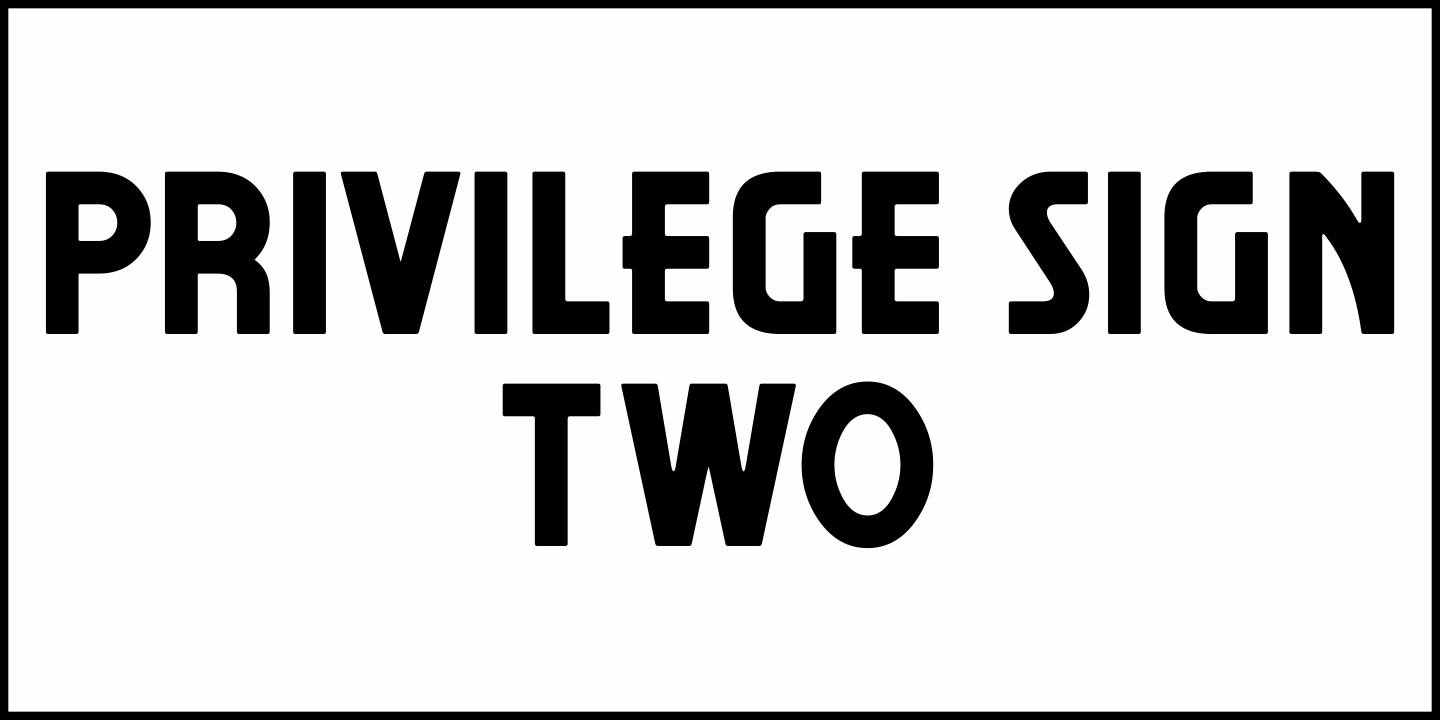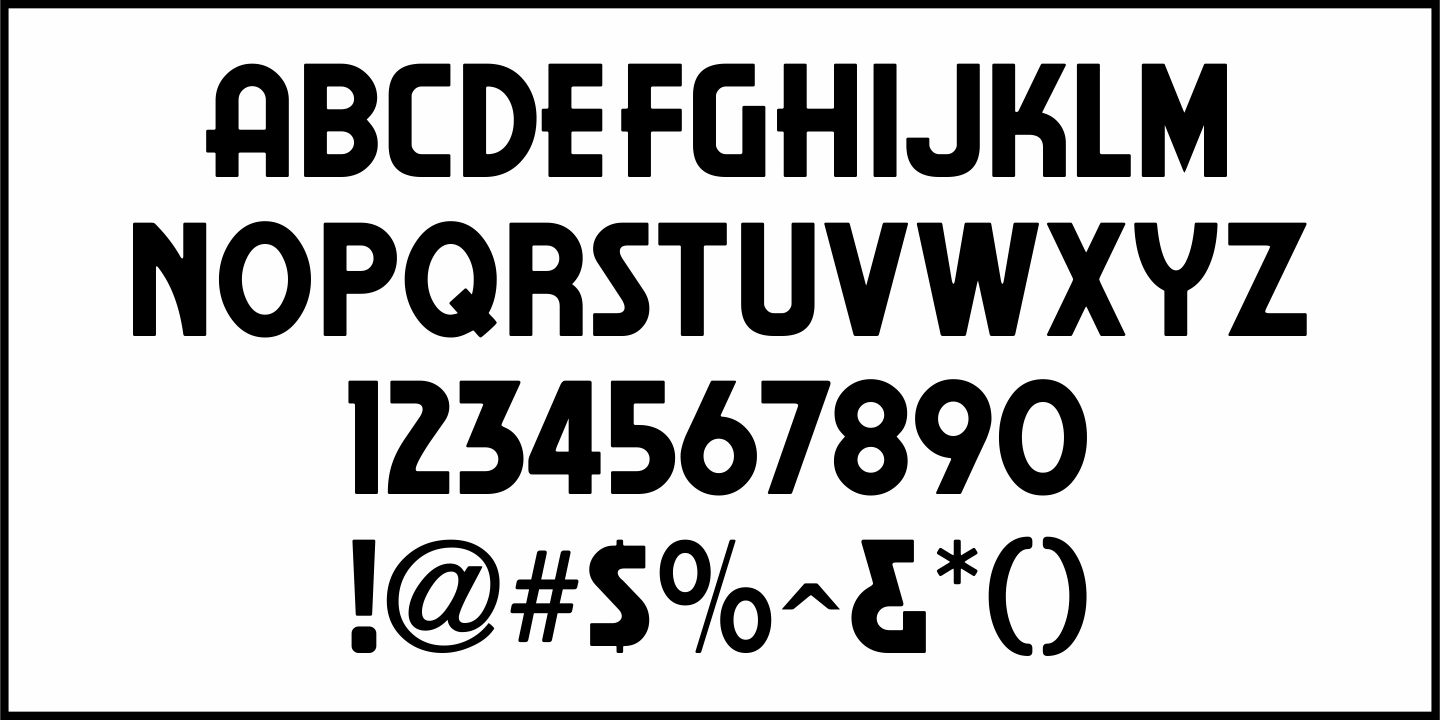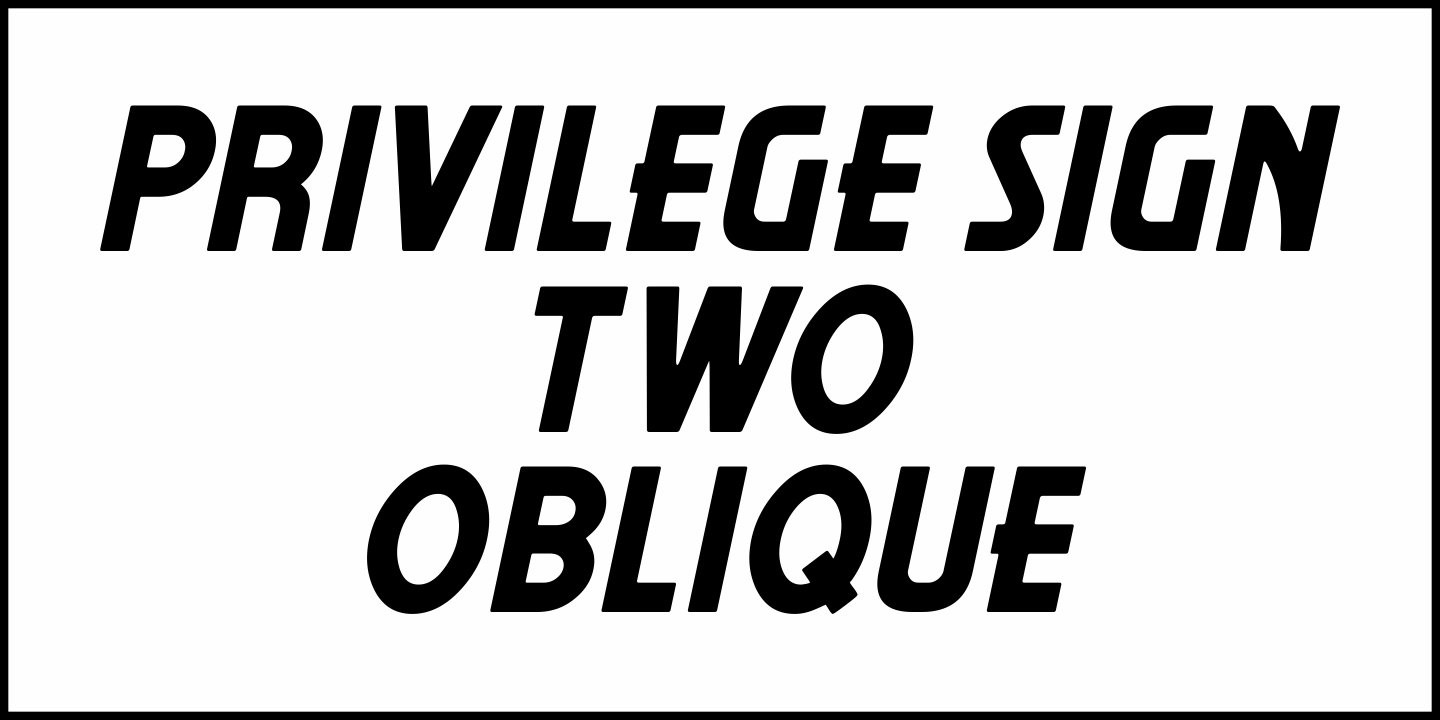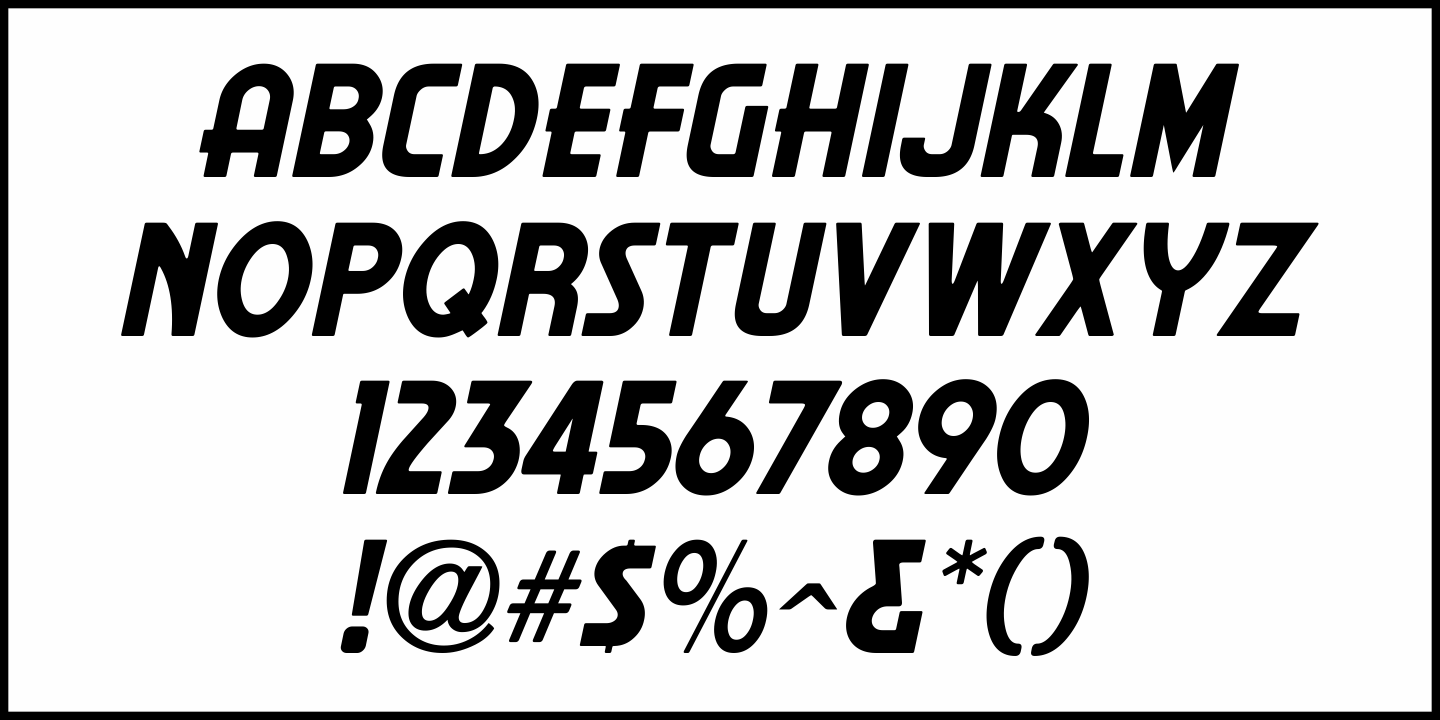
Privilege Sign Two
Unique and decorative signage for many drive-ins, motels, food stores and other businesses of the 1940s had what was referred to as “privilege signs” provided by one of the major cola brands.
Consisting of the brand’s emblem on a decorative panel, the remainder of the sign would carry the desired message of the storekeeper (such as “Drive-In”) in prismatic, embossed metal letters.
Inspired by the Art Deco sans serif style of those vintage signs, Privilege Sign Two JNL recreates the type design in both regular and oblique versions. The typefaces are solid black, but adding a selected color and a prismatic effect from your favorite graphics program can reproduce the look and feel of those old businesses.
This is a companion font to Privilege Sign JNL, which recreates the condensed sans serif lettering of other privilege signs from
the 1950s and early 1960s.